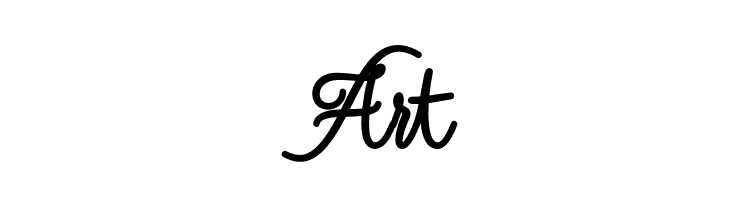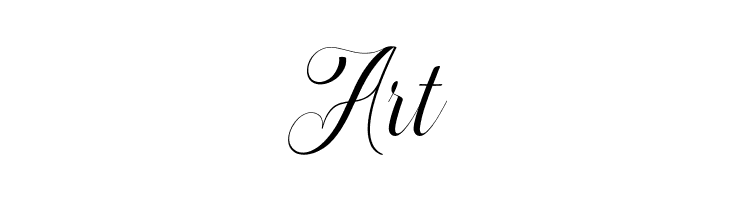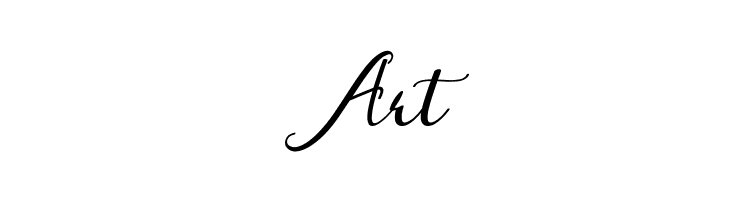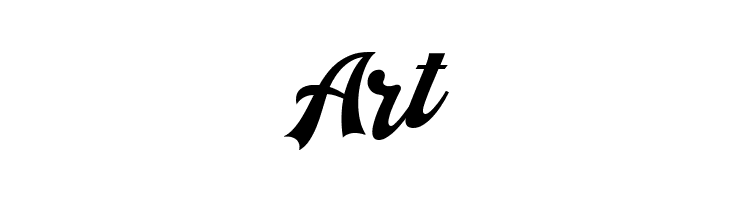
• Cattalleya Demo
An elegant, flowing script font with thin, delicate lines and graceful curves.
• Andalan-artdesign
An elegant, flowing script font with ornate uppercase and smooth lowercase characters.
• marketing art desing
An elegant and flowing script font with ornate uppercase and smooth lowercase letters.
• beatiful arwah studio
A graceful and fluid script font with elegant curves and delicate strokes.
• BaleriaScript
A lively and elegant script font with flowing, connected letterforms.
• Lekcra Crubop Free Regular
A bold, decorative font with dynamic curves and sharp serifs.
• Fujinstall Free Regular
A playful, handwritten font with fluid, connected strokes and a casual elegance.
• Bottomvega Free Regular
An elegant, flowing script font with smooth, cursive strokes.
• Dawsons Script Free
A fluid and elegant script font with graceful cursive strokes.
• Hachitos Free Regular
An elegant, flowing script font with smooth, cursive strokes.